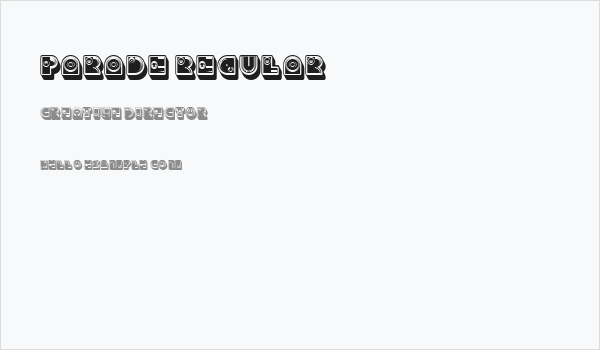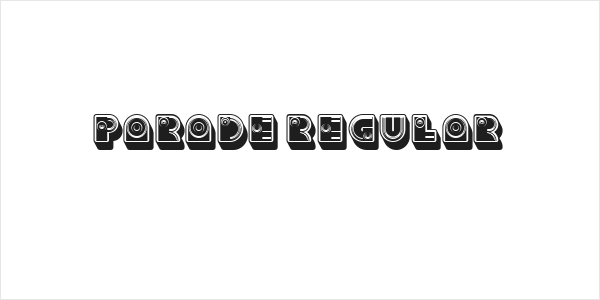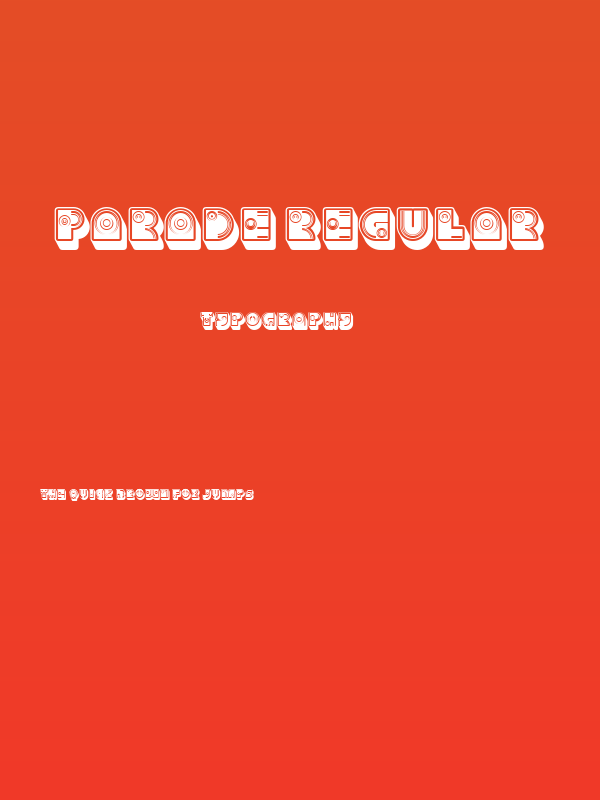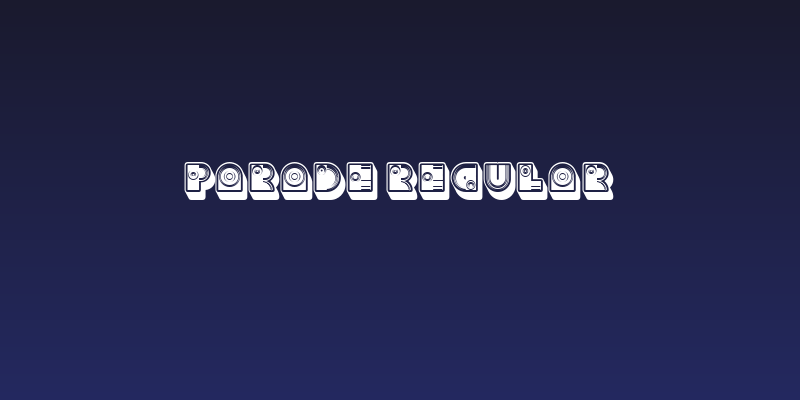
Parade Regular Font
Parade Regular Description
This font features a bold and decorative style with a unique 3D effect. Each character is designed with intricate line patterns that create a sense of depth and movement. The letters are uppercase, with a consistent width and a playful, artistic flair. The design is eye-catching and suitable for creative projects that require a standout typeface. The font's boldness and decorative elements make it ideal for use in headlines, posters, and branding materials where a strong visual impact is desired.
| Proposed Projects | Ideal for use in posters, branding, headlines, and creative design projects. |